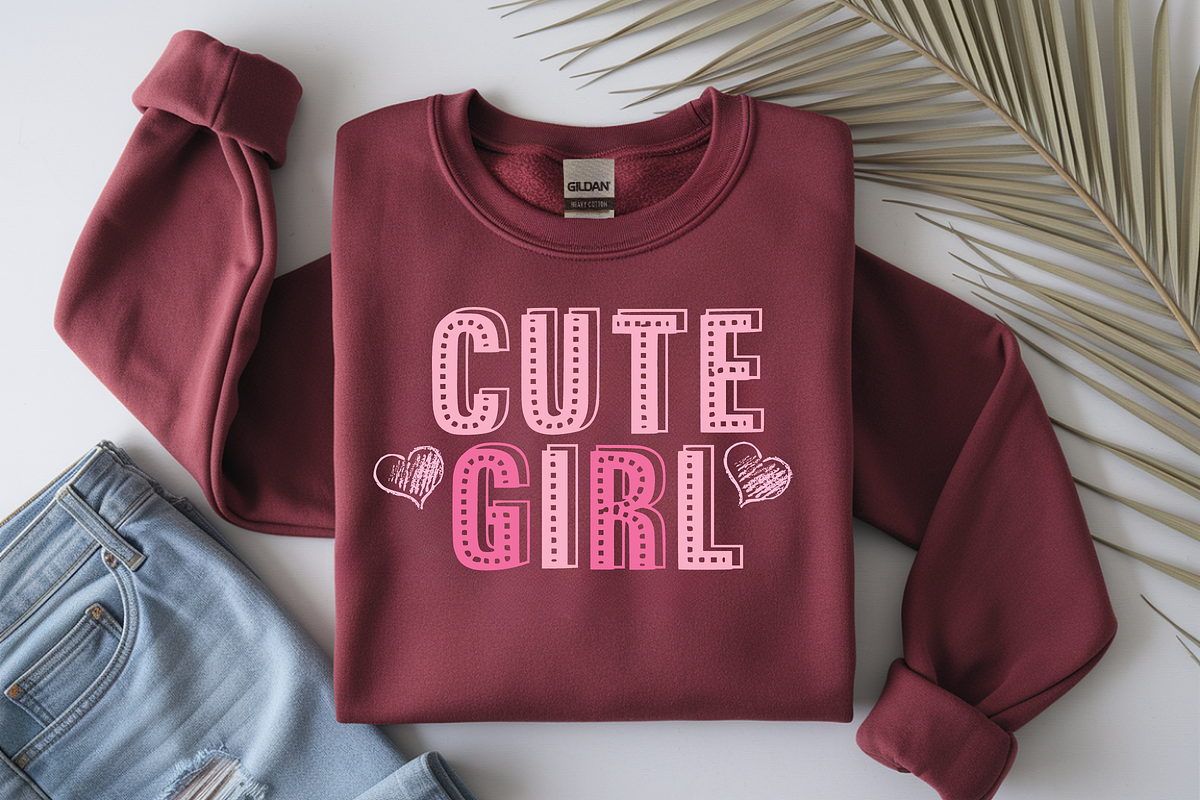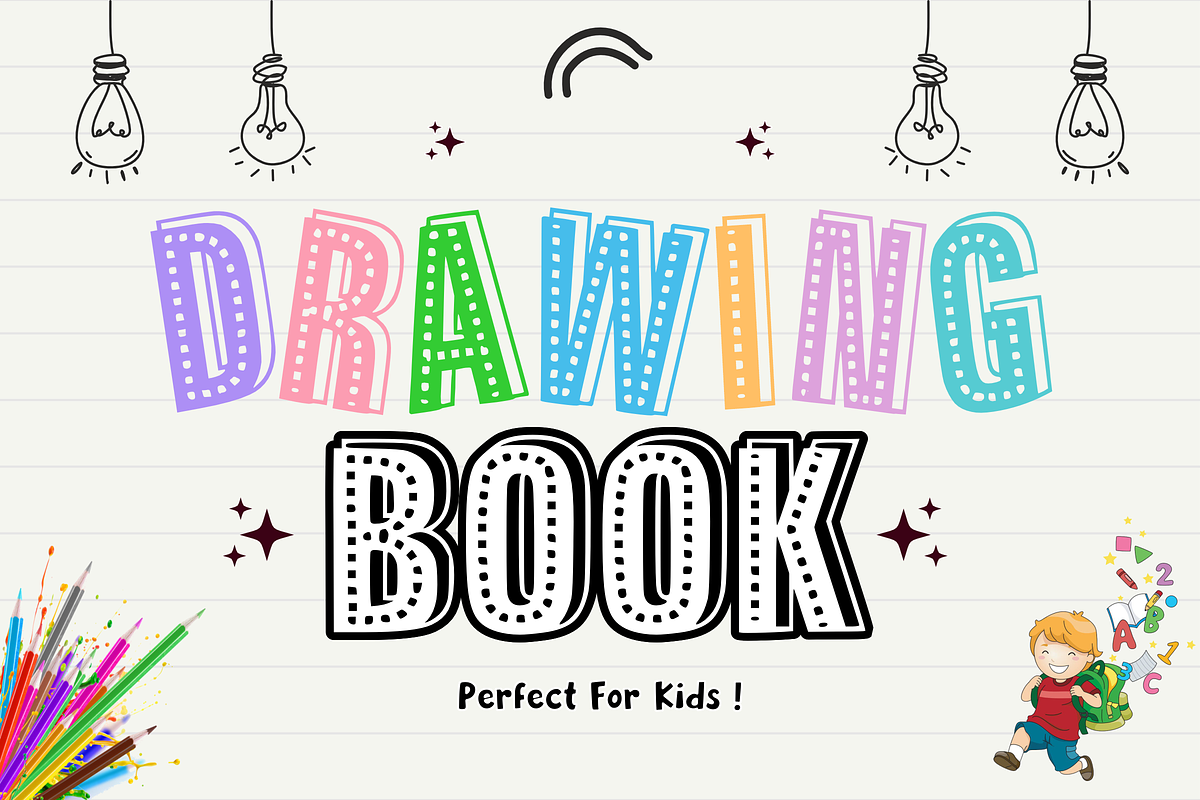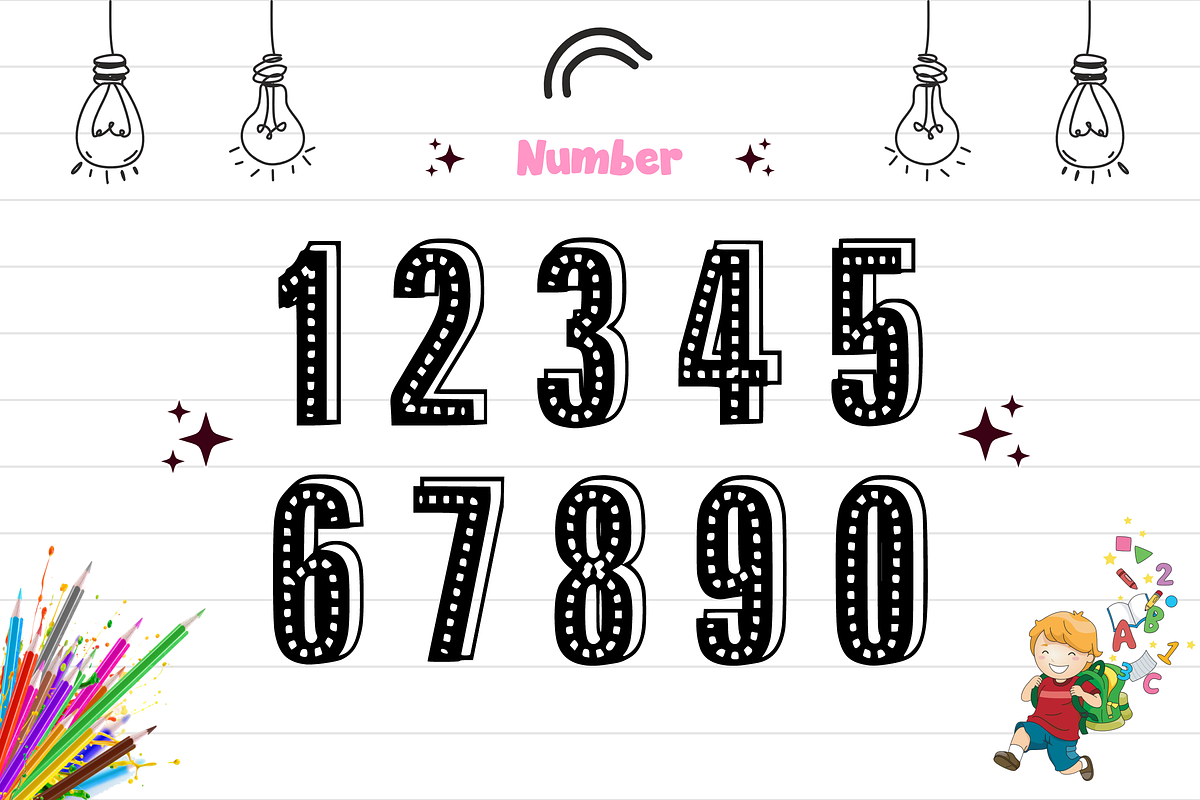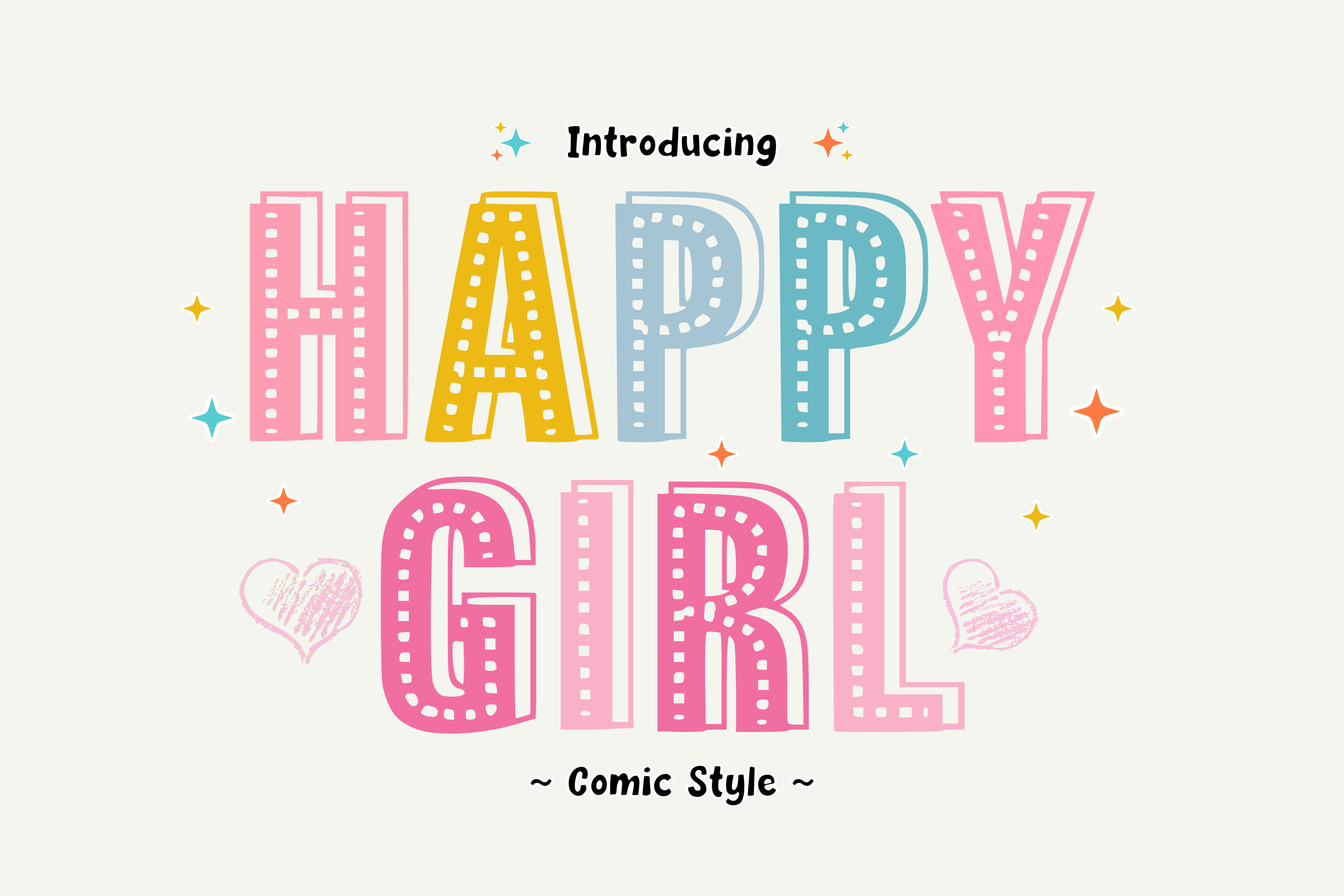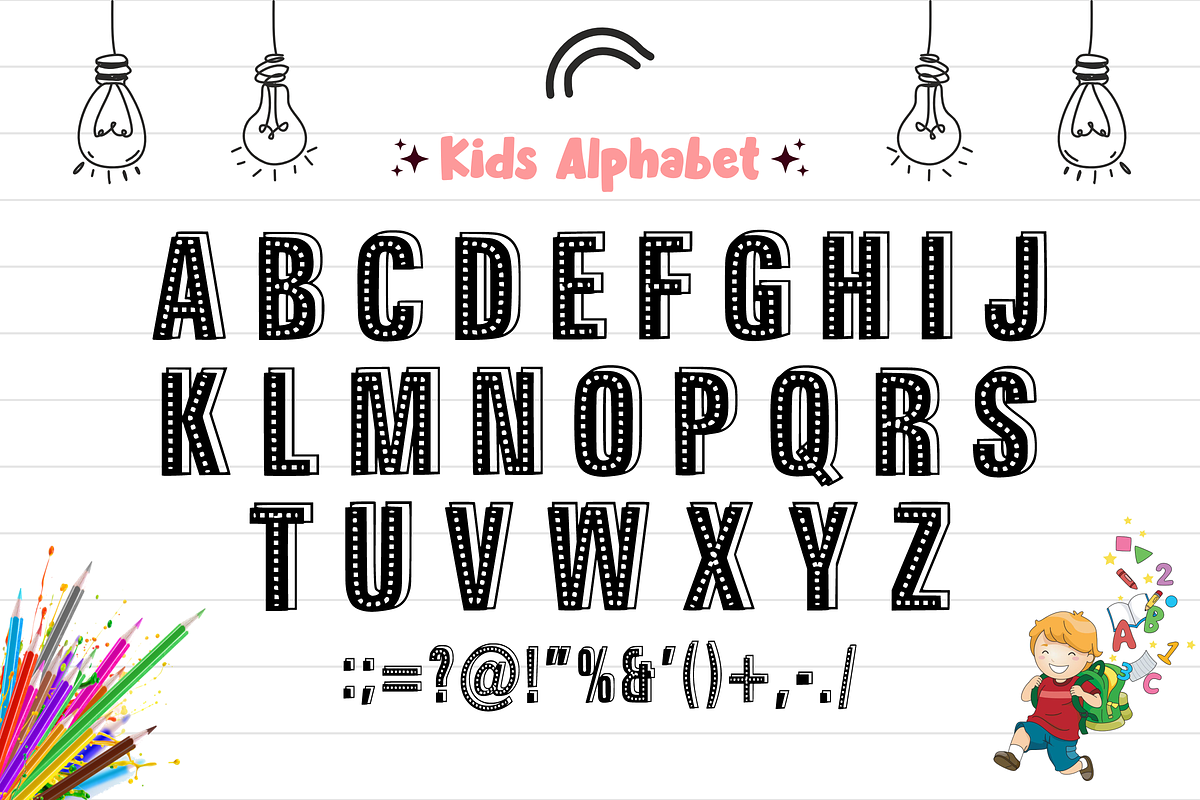
Happy Girl - Playful Cute Font
Brighten up your designs with Happy Girl! This bubbly, comic-style display font features an adorable inner stitched-line detail that adds an instant touch of warmth and cheerfulness to any layout. It’s the ultimate choice for making your headlines, crafts, and children's projects look sweet and inviting.
Perfect for girly branding, school designs, and trend-focused crafting, Happy Girl masterfully combines a whimsical aesthetic with clean legibility. It is highly versatile, deeply expressive, and fully optimized for seamless performance across premium digital cutting tools and professional print setups.
All-Caps Character Set (Chunky, playful uppercase letters with inner dots)
Numbers & Basic Punctuation (Essential, simple symbols included)
Children's Storybooks, School Printables, & Cute Educational Materials 📚
Cricut, Silhouette, & DIY Holiday Craft Sublimation Projects ✂️
Girly Product Packaging, Birthday Invitation Cards, & Party Decor 🎈
Custom Die-Cut Stickers, Sweet Apparel Prints, & Nursery Wall Art 👕
Social Media Graphics, Fun Planner Layouts, & High-Impact Branding 💖